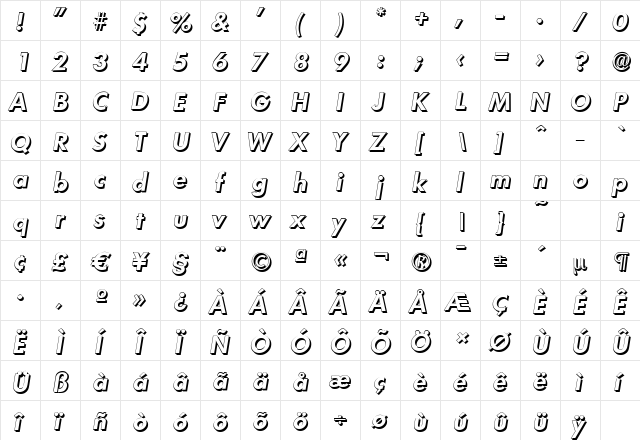
LimerickShadow BoldItalic Font Preview
Design Context for LimerickShadow Typeface
LimerickShadow brings ornamental detail and strong personality to headlines and identities, where visual impact matters more than quiet functionality. Its italic angle brings a sense of urgency and motion to the letterforms. The heavy weight commands attention and anchors typographic hierarchies.